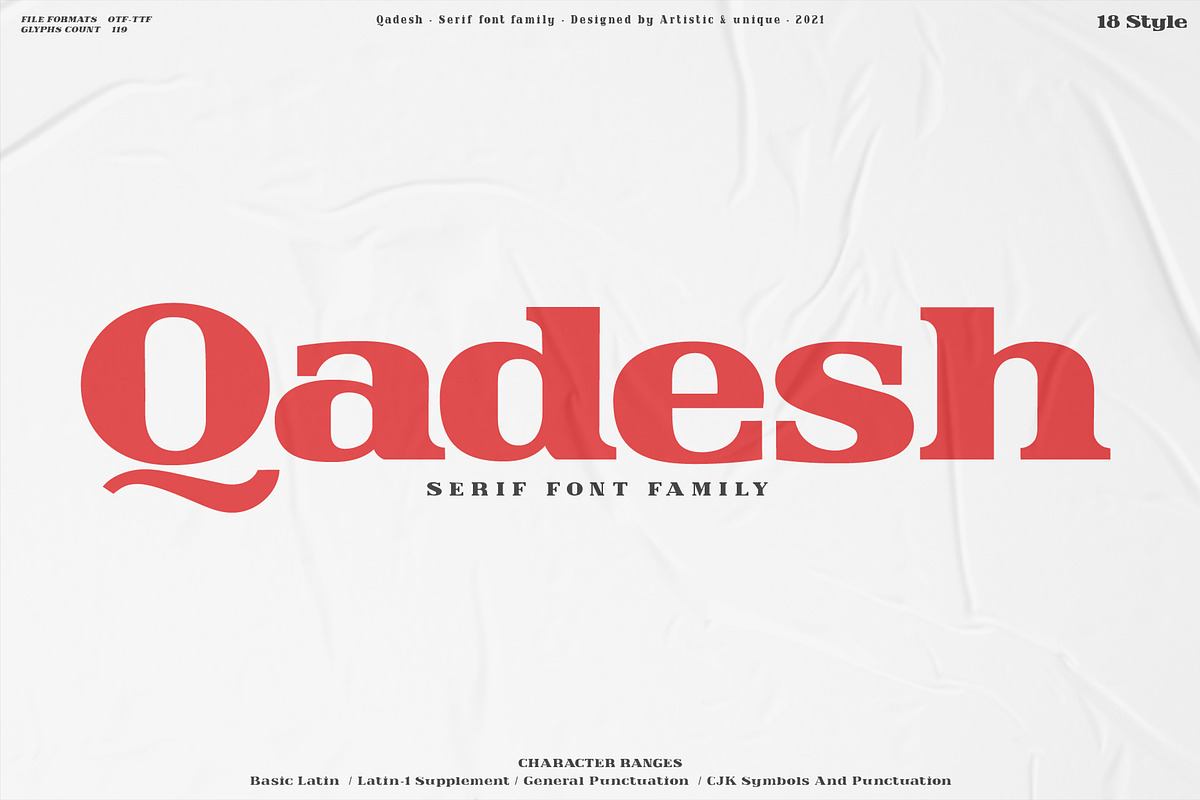
Qadesh – Serif Font Family Free Download is an elegant and versatile serif typeface family designed to offer both classic charm and modern flair. Featuring a wide range of weights and styles, this font family is perfect for editorial designs, branding, logos, book covers, websites, and any project that needs a polished, professional look.
The Qadesh family combines traditional serif elements with contemporary proportions, making it suitable for both high-end luxury brands and everyday use. Its refined readability and sophisticated design make it ideal for body text, as well as bold headlines and logos.
Enhance your designs with the timeless elegance and versatility of the Qadesh Serif Font Family!